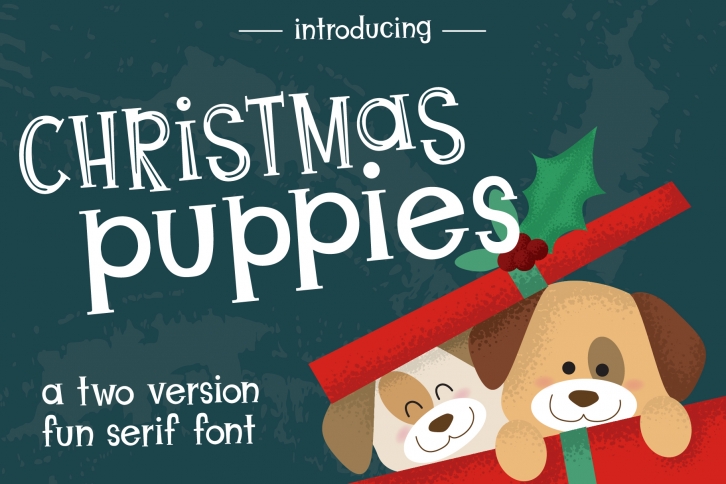
Christmas Puppies Pair is a gorgeous font that was realeased on October 23, 2018. The font can be used in many style contexts and design environments. Perfect for invitations, magazines, websites, logos, and more! It was designed by Tu Neuwin and the file size is 15.46 MB. Thanks for checking out this font!